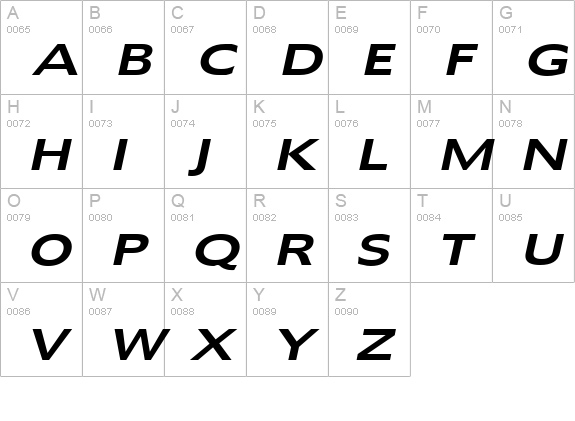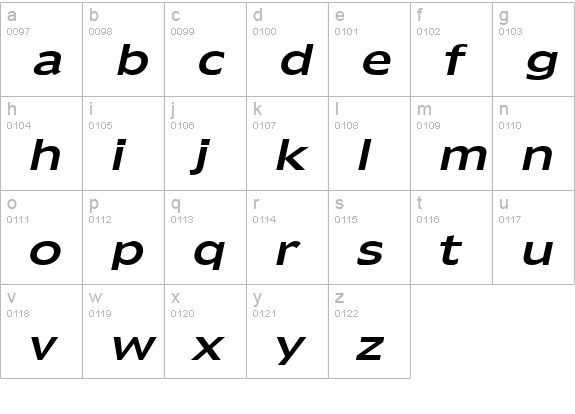
Adams Wide Italic is a distinctive, extended-width, italic variant in the Adams typeface family \xE2\x80\x94 well suited to design and typography projects.
Adams Wide Italic is a stylish and modern font that exudes sophistication and elegance. Its italicized design adds a touch of flair and creativity to any project. With its wide stance and graceful curves, Adams Wide Italic is perfect for creating eye-catching headlines, logos, and branding materials. The best part? Adams Wide Italic is available for free download at FontsMarket.com. Whether you're a designer looking to add a unique touch to your work or a business owner in need of a distinctive font for your marketing materials, Adams Wide Italic has you covered. Don't miss out on this opportunity to enhance your projects with this beautiful and versatile font. Download Adams Wide Italic today and elevate your designs to the next level.